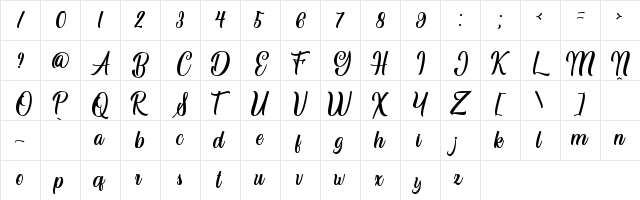
Shuttezerg Script Personal Use Regular
| Foundry | FallenGraphic |
| Designer | Vava Aryanto |
Design Context for Shuttezerg Script Personal Use Typeface
Shuttezerg Script Personal Use brings a calligraphic fluidity to the page — its connecting strokes and expressive curves give it an unmistakably human quality.